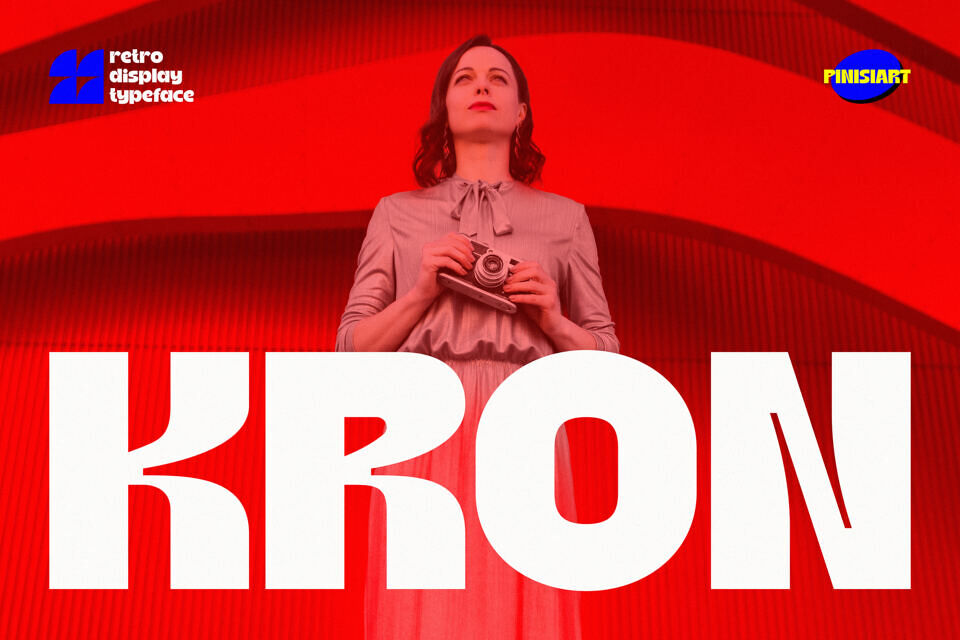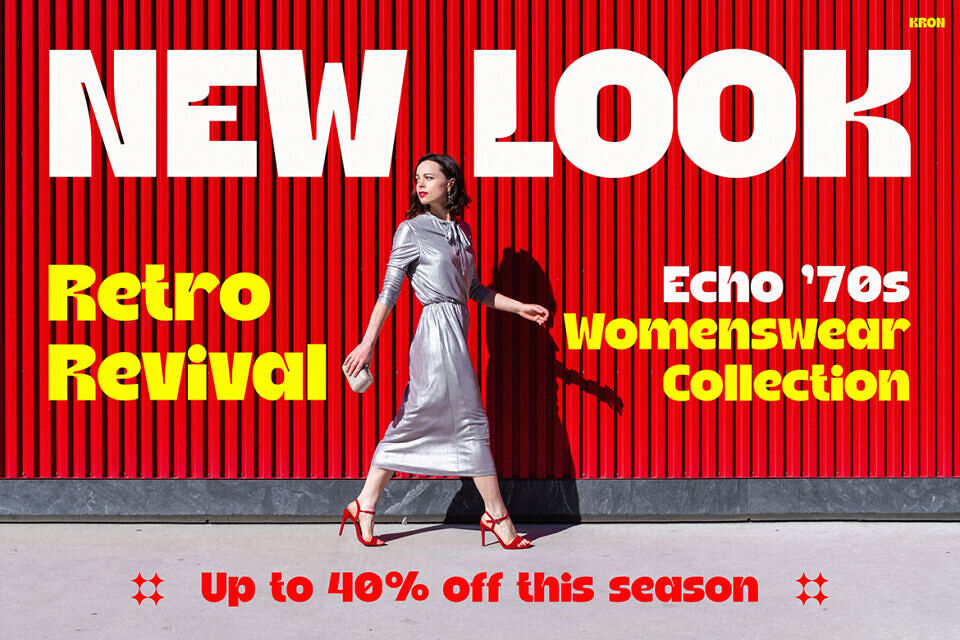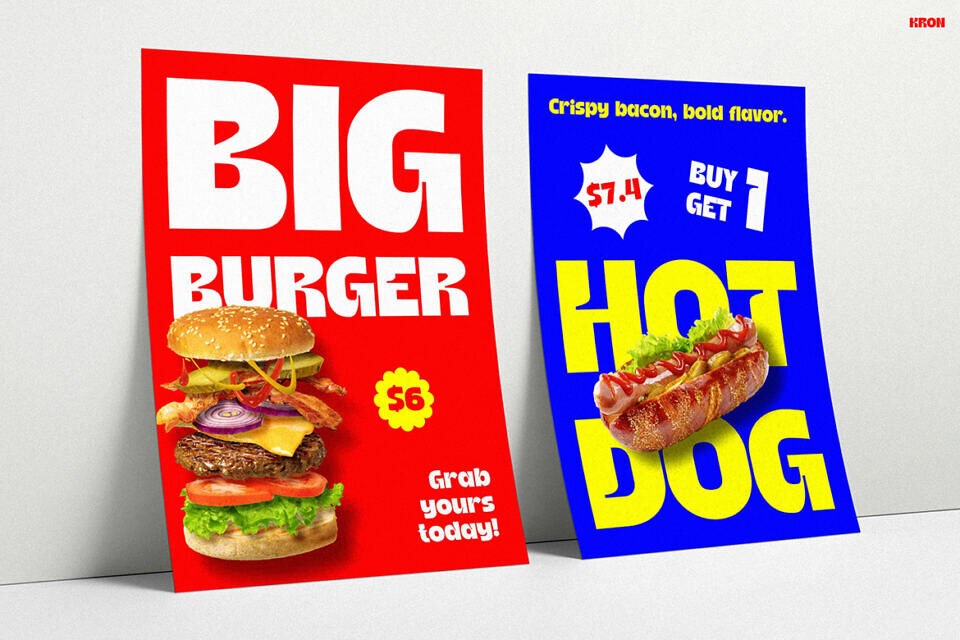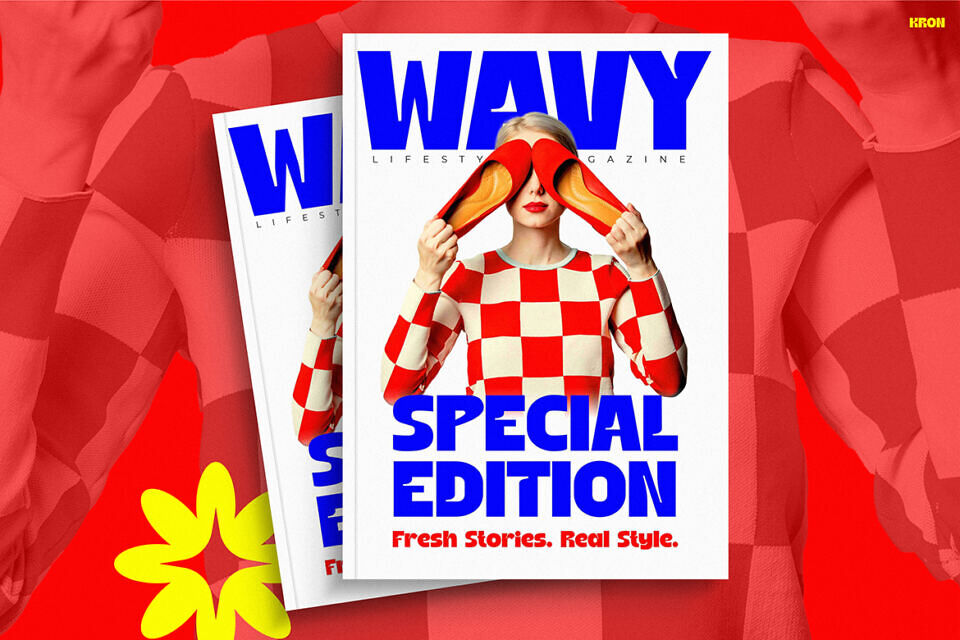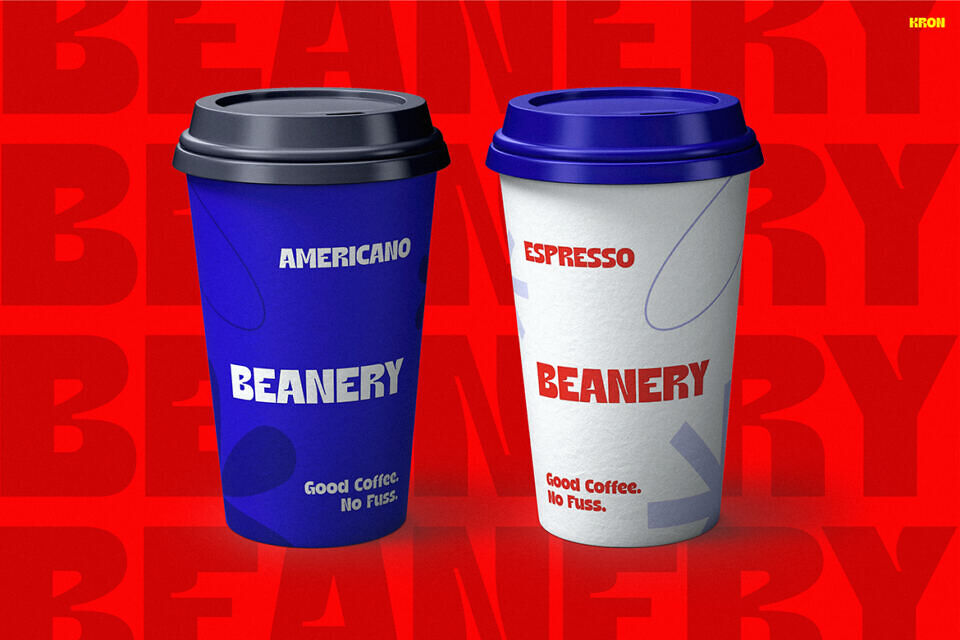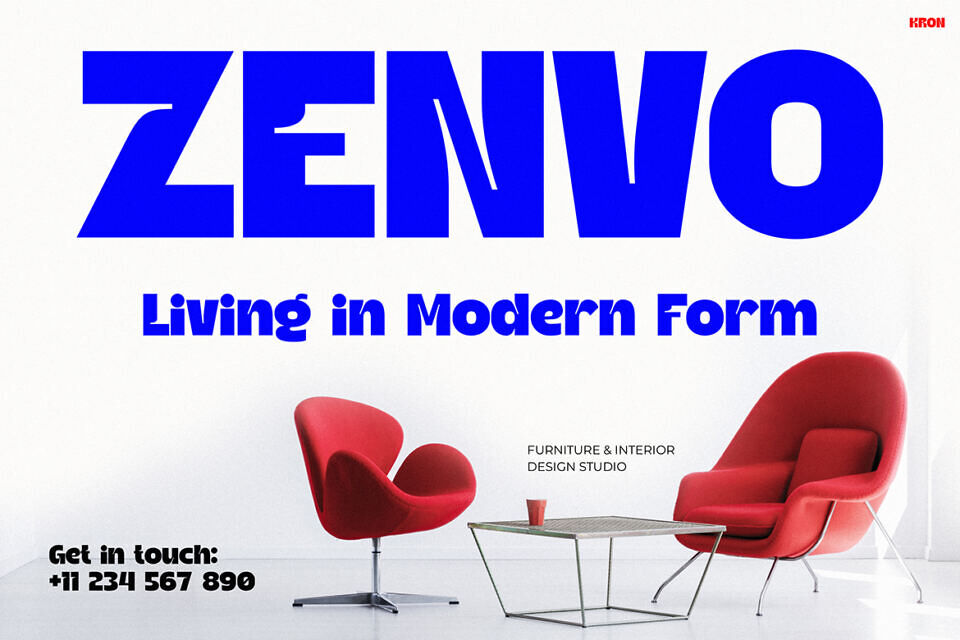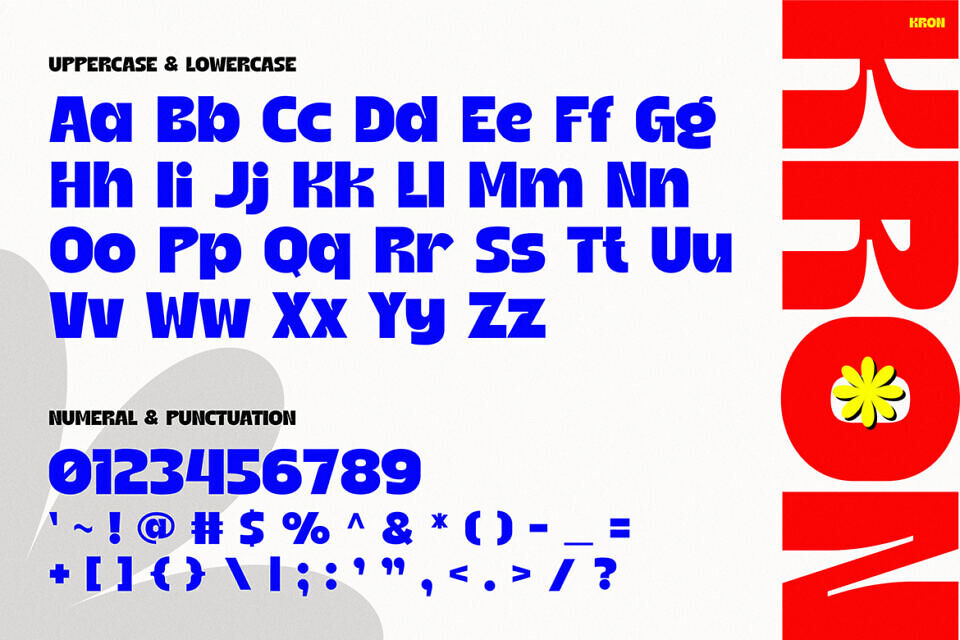
This retro font KRON brings back the golden charm of the 70s and 80s with a bold modern twist. Its strong geometric curves, wide letterforms, and clean lines create a confident visual rhythm that instantly grabs attention. Every stroke feels both vintage and futuristic — blending nostalgic warmth with modern minimalism. Whether displayed on posters, headlines, or packaging, KRON commands the spotlight with style and strength.
This font stands out through its balanced proportions and retro-inspired flair, making it perfect for designs that need a bold personality. It shines in both digital and print layouts, offering powerful visual impact without losing readability. From magazine covers to product branding, KRON adds a professional yet creative touch that elevates every composition.